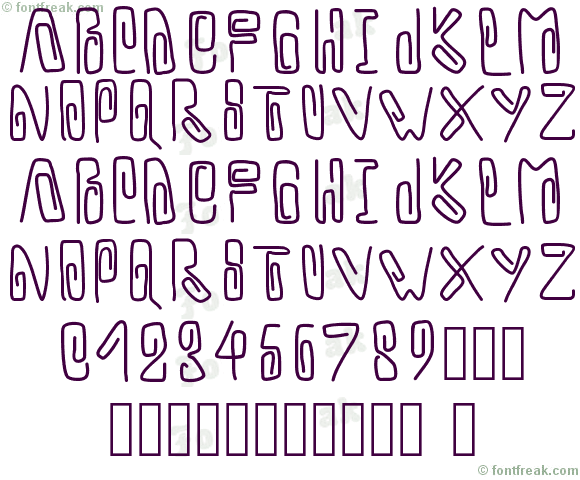
PWTrombone
About PWTrombone
PWTrombone by Peax Webdesign is a unique display font that captures attention with its playful and artistic style. This font features a whimsical design characterized by its bold strokes and a slightly irregular line quality, giving it a hand-drawn feel that is both engaging and approachable. The stroke weight varies throughout, creating an interesting contrast that enhances its visual appeal. The letterforms are generously spaced, allowing for easy readability while maintaining a lively character. Decorative elements are subtly integrated, adding to the font's charm without overwhelming the overall design.
PWTrombone is particularly well-suited for a variety of creative projects. It shines in applications such as wedding invitations, where its playful nature can evoke a sense of joy and celebration. Additionally, it works beautifully for movie posters, helping to convey a fun and vibrant atmosphere. Restaurant menus can also benefit from its artistic flair, making dishes stand out and enticing diners. Content creators looking to add a unique touch to their social media graphics will find this font invaluable, as it draws attention and fosters engagement.
The target audience for PWTrombone includes graphic designers, small business owners, and content creators who are seeking to infuse their work with a distinctive, creative touch. This font's versatility makes it an excellent choice for anyone looking to make a statement.
In conclusion, PWTrombone stands out for its unique blend of playfulness and readability, making it an ideal choice for a wide range of design projects. With PWTrombone font free download available, designers can easily enhance their work with this charming typeface that brings a touch of whimsy and creativity to any project.